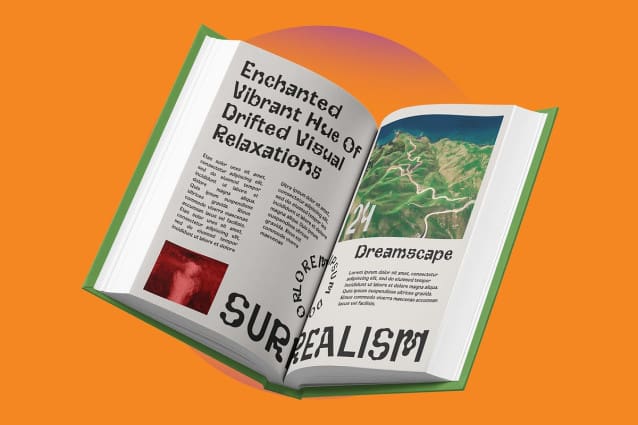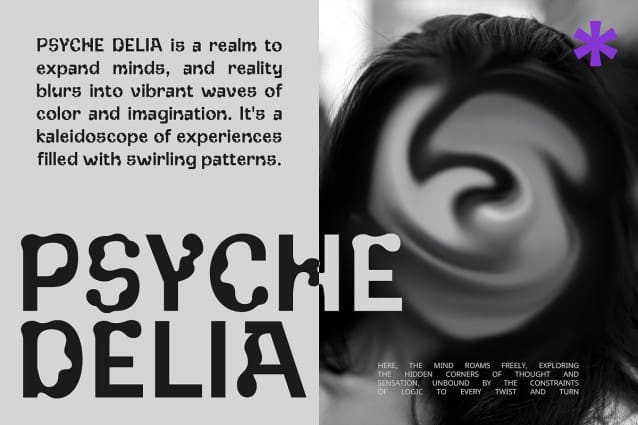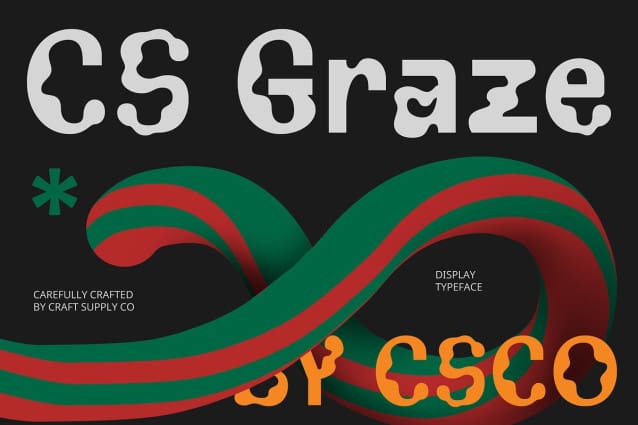
CS Graze Font
CS Graze Font is a psychedelic display font that stands out with its funky and energetic design. Inspired by the bold visual styles of the 1960s, this font features curved, wavy, and distorted letterforms, creating a dynamic and unconventional appearance. The unique shapes add a sense of movement and creativity, making it a captivating choice for any project.
Bold and Unconventional for Maximum Impact With its bold and funky style, CS Graze is designed to grab attention. The striking, unconventional letterforms lend a playful and artistic vibe to your work, making it ideal for projects that require a standout visual element. Whether used in vibrant colors or monochrome, CS Graze brings a lively and fresh perspective to your designs.
Perfect for Creative and Artistic Projects CS Graze is the go-to font for concert posters, art festival promotions, and creative projects that aim to evoke a dynamic and colorful atmosphere. Its bold psychedelic style and fun, funky aesthetic ensure that your designs will shine with energy and character, offering a nostalgic yet modern flair.